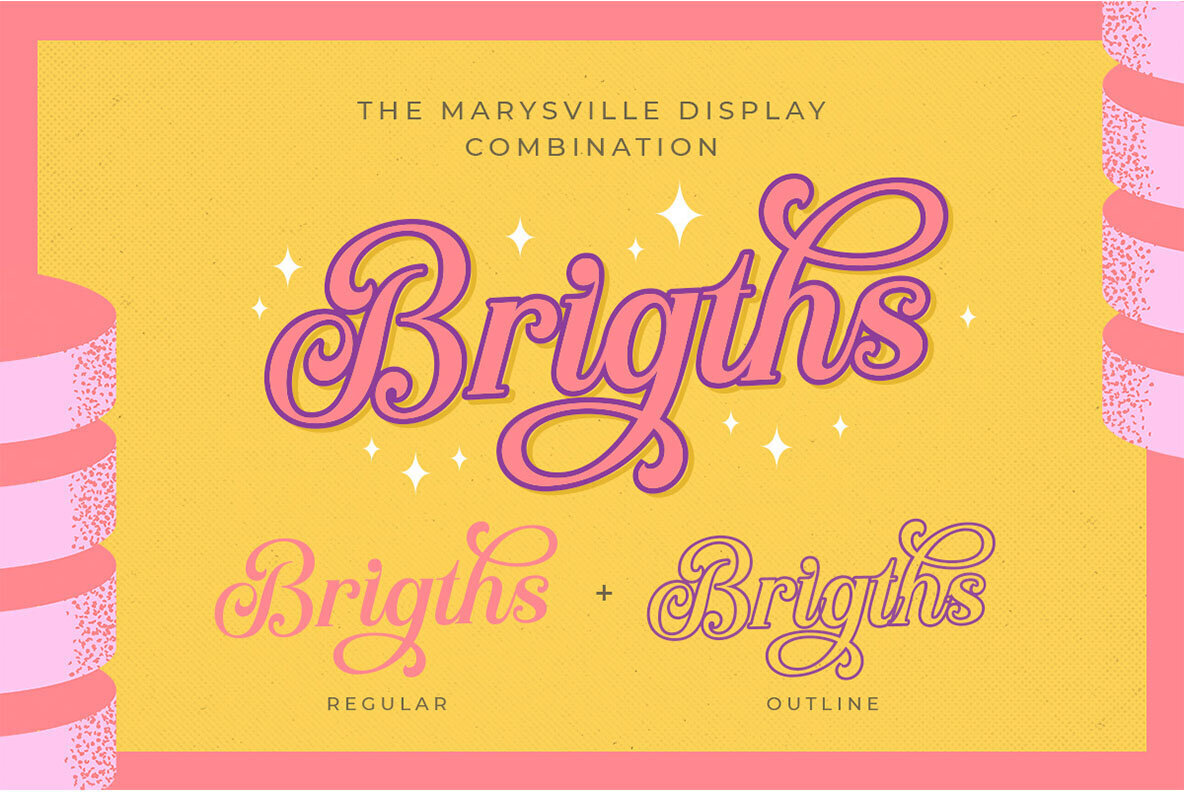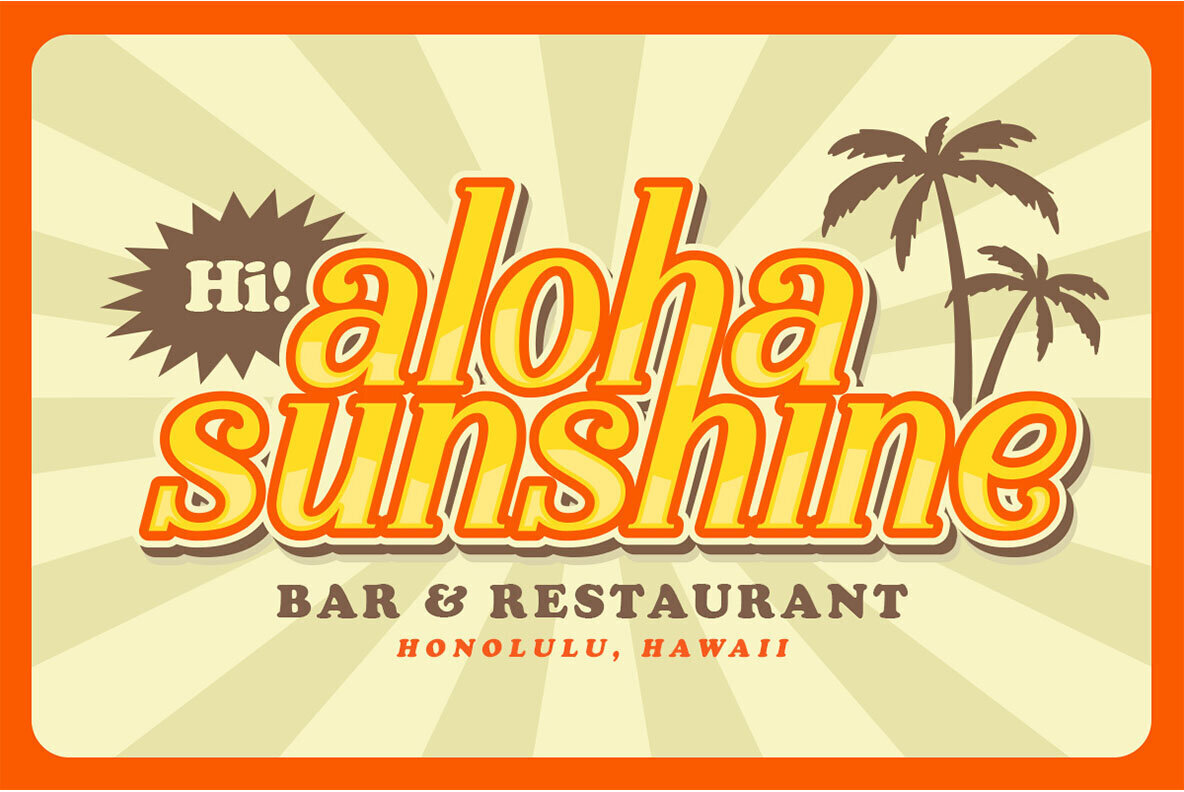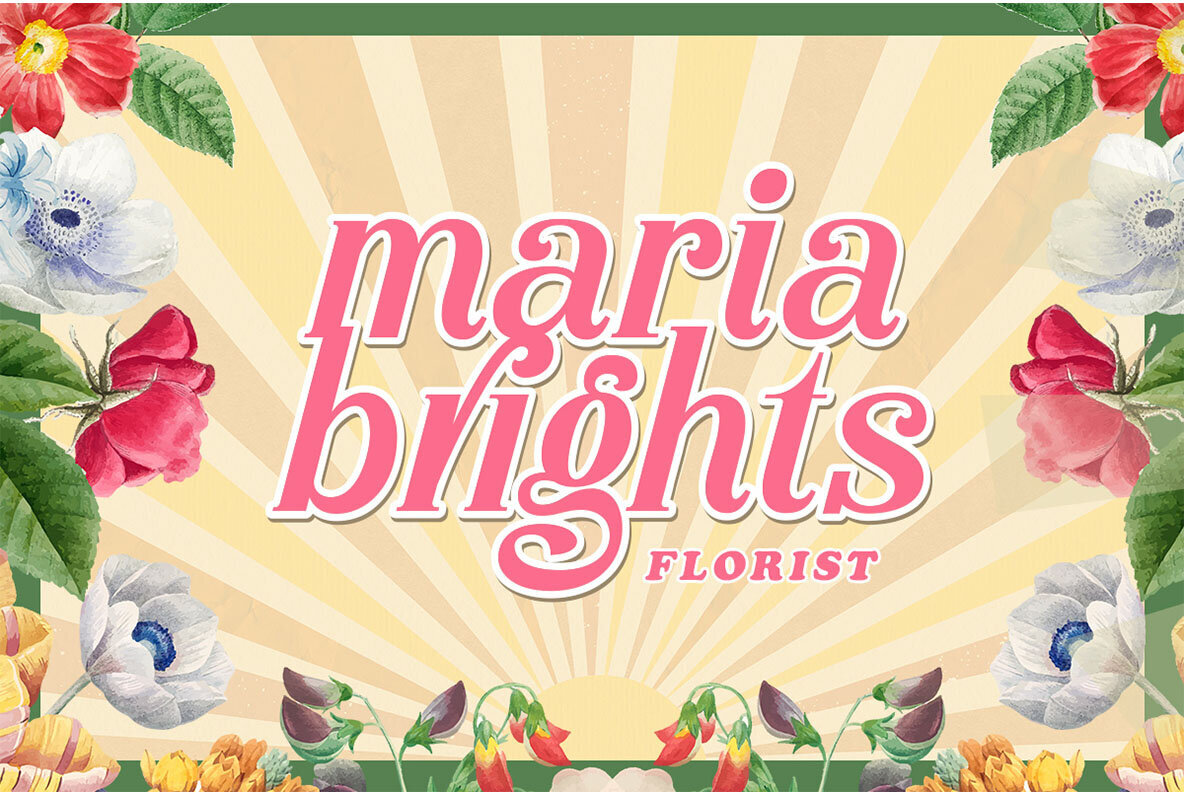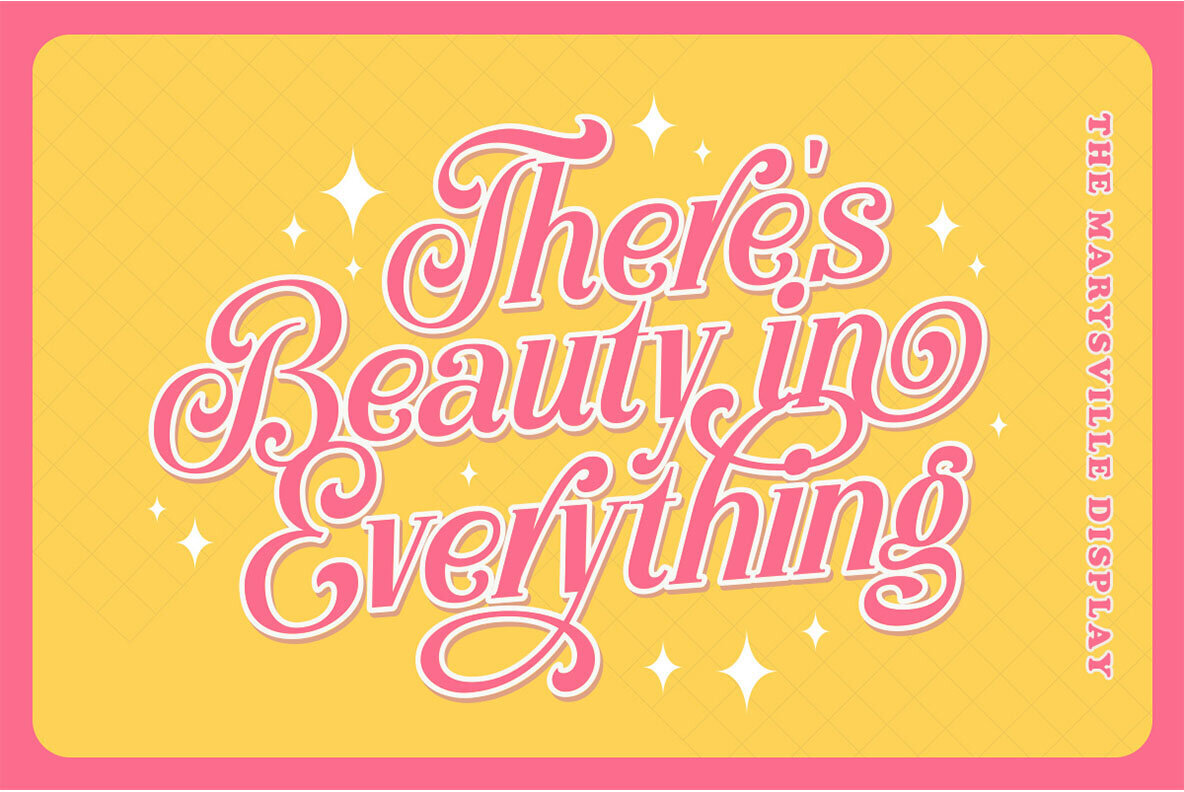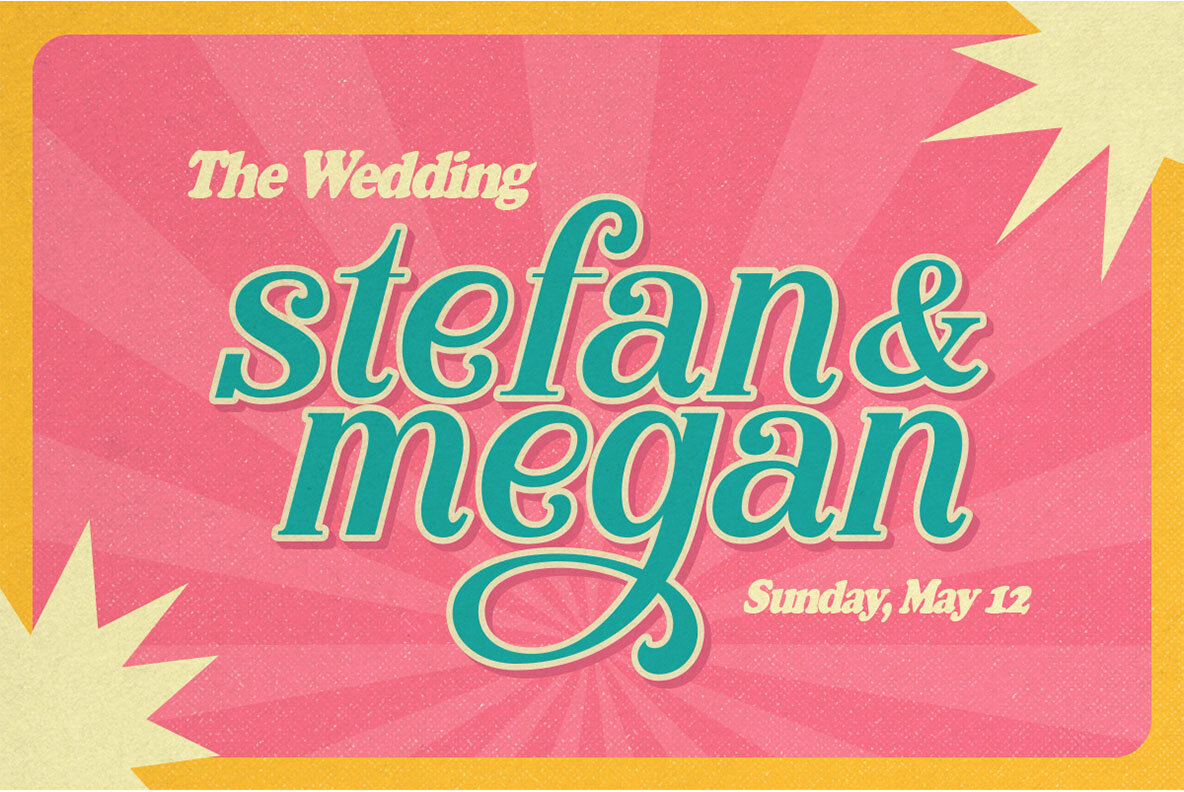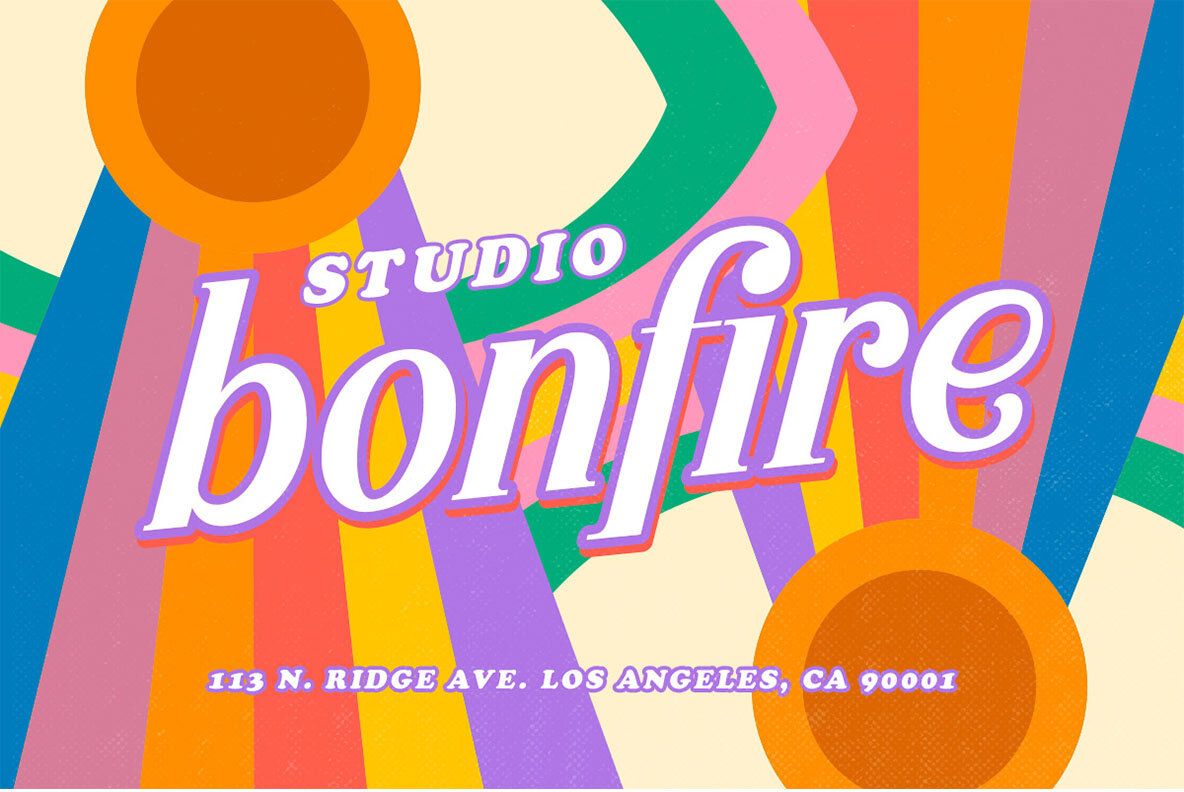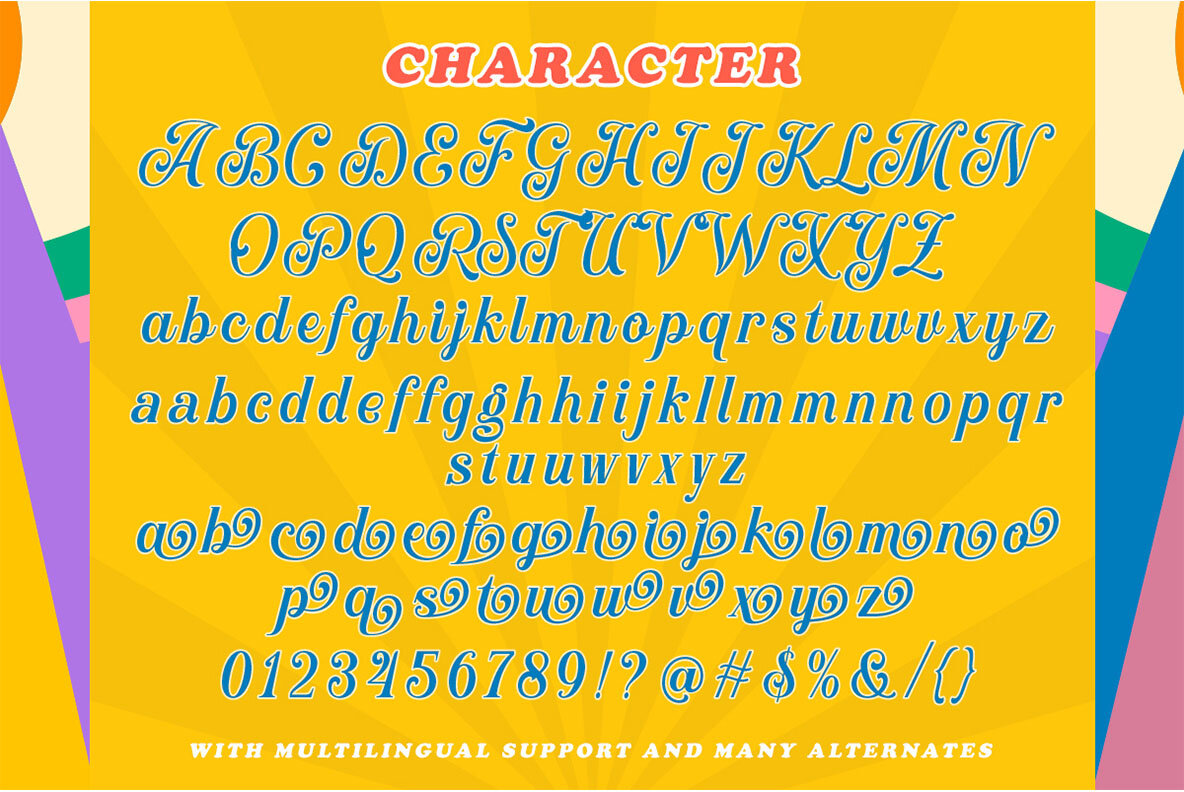
The Marysville Font
Embrace the nostalgic allure of the 1960s with Marysville, a retro bold script that invigorates any project with a vintage flair. Expertly designed for adaptability, this typeface is ideal for placing in logos, magazines, book covers, fashion events, and beyond. Whether crafting wedding invitations or designing packaging, Marysville offers a touch of classic elegance in all your formal and creative endeavors.Marysville: Retro Bold Script With 1960s Charm